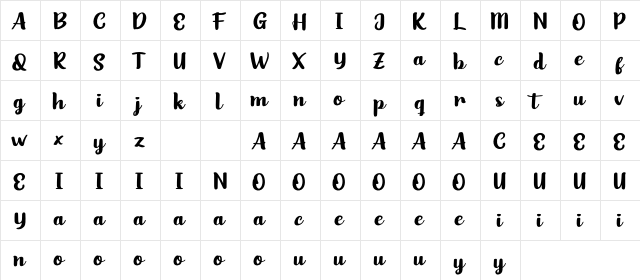
Olive Remaine Personal Use
Design Context for Olive Remaine Typeface
Olive Remaine is a composed and adaptable typeface that performs quietly and consistently across a wide range of design contexts.